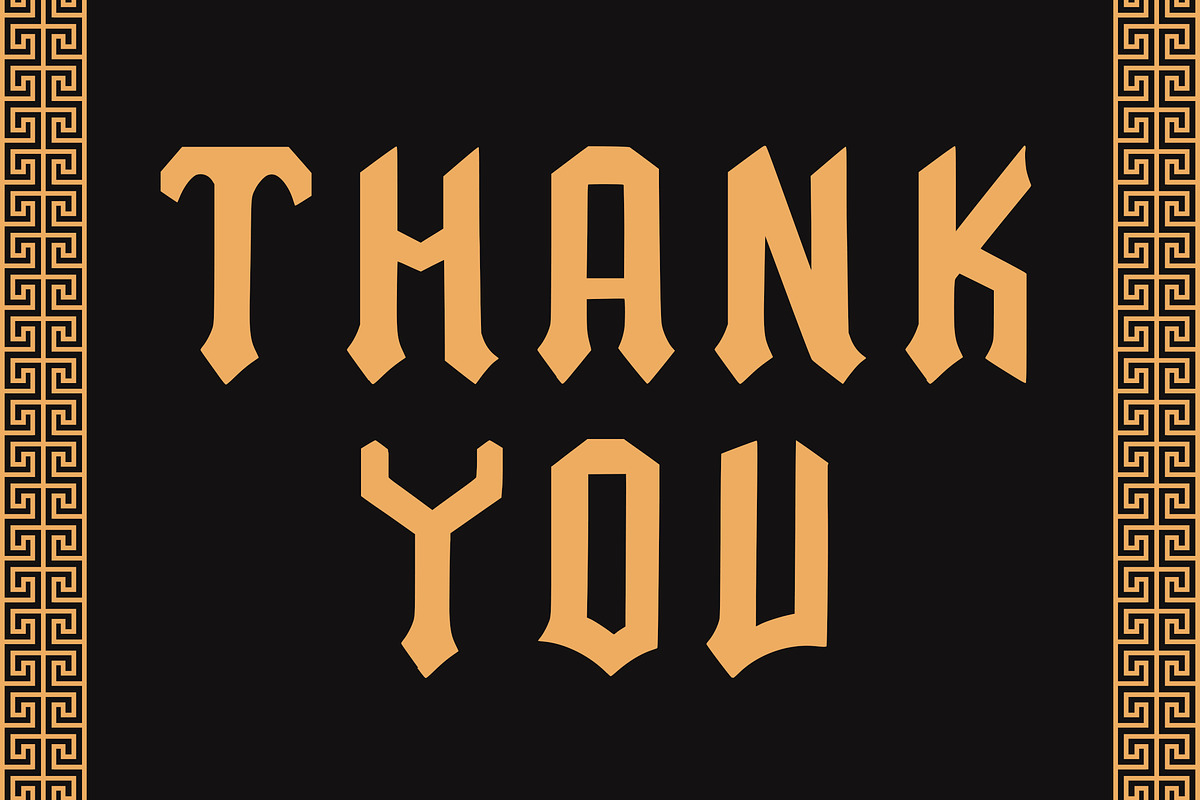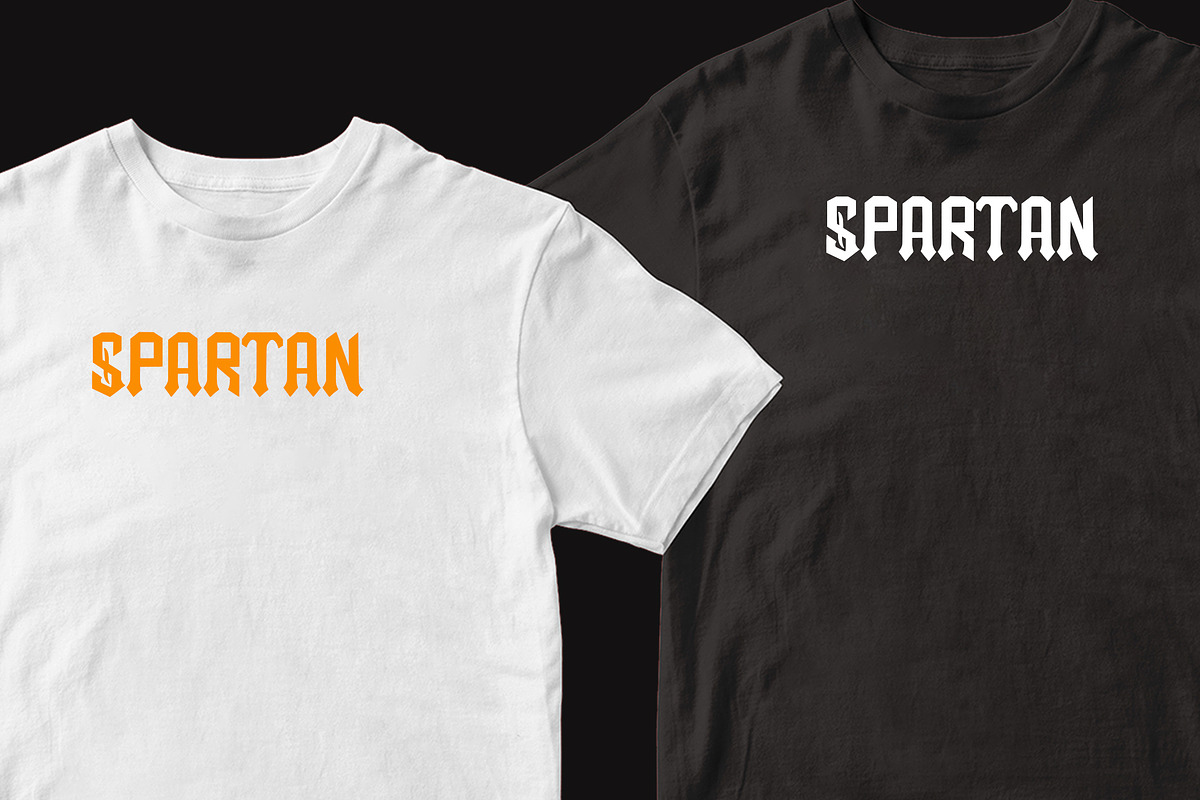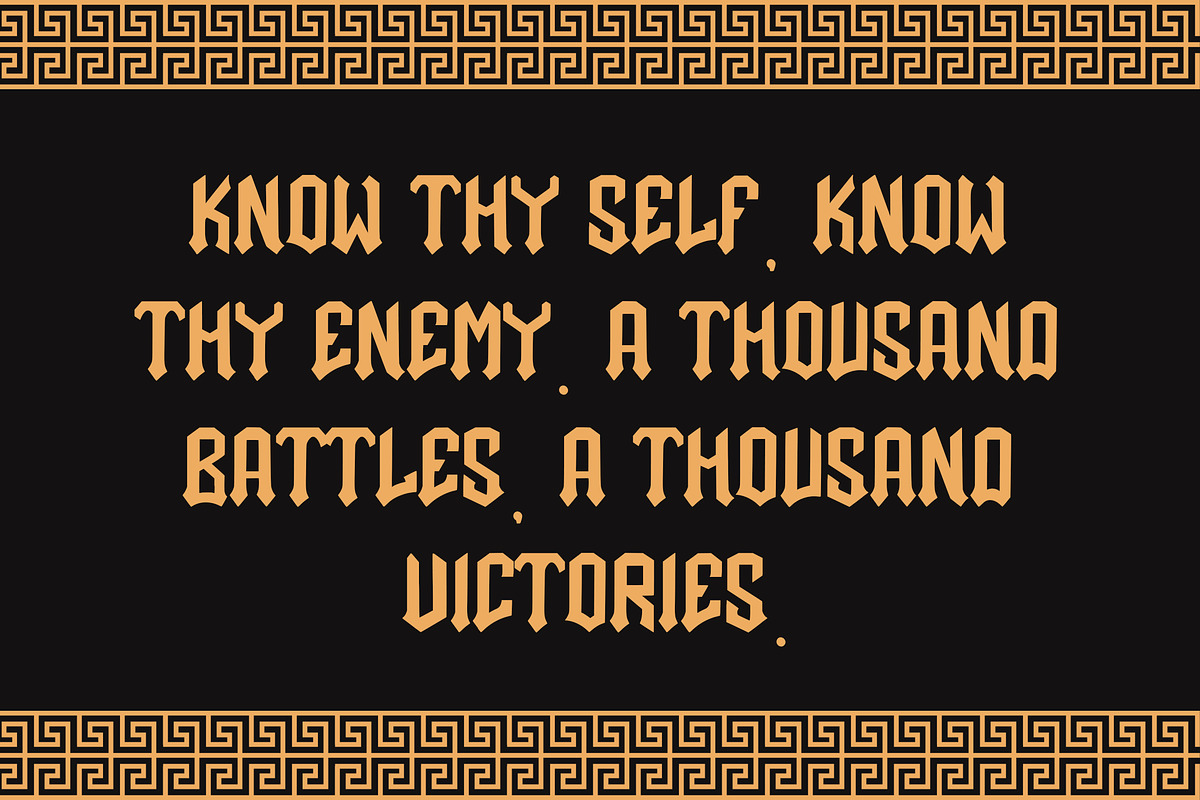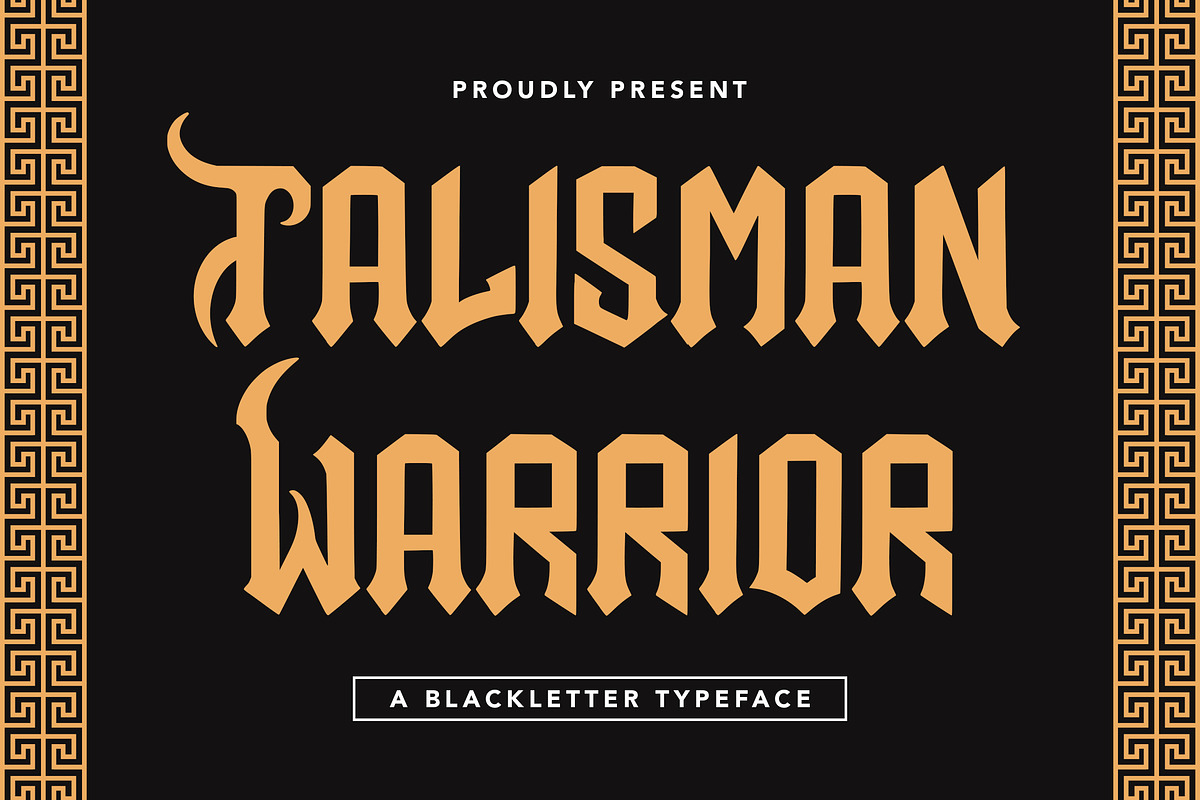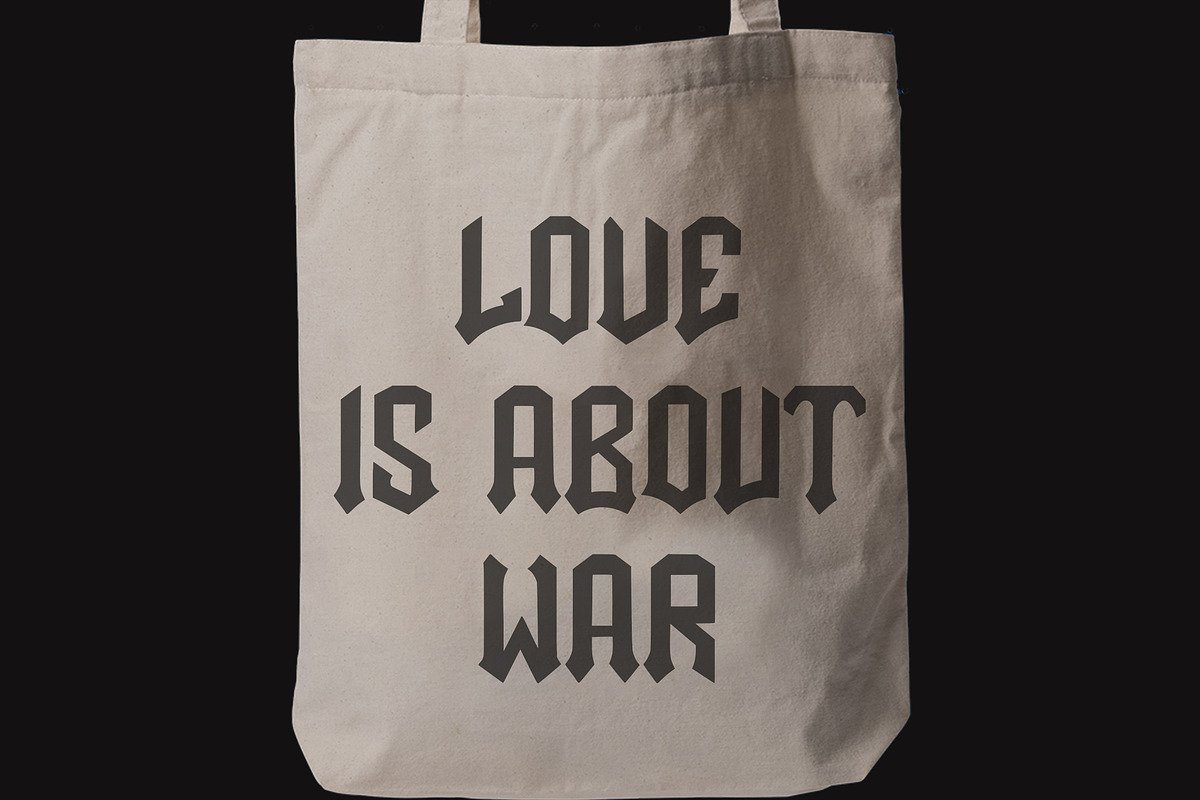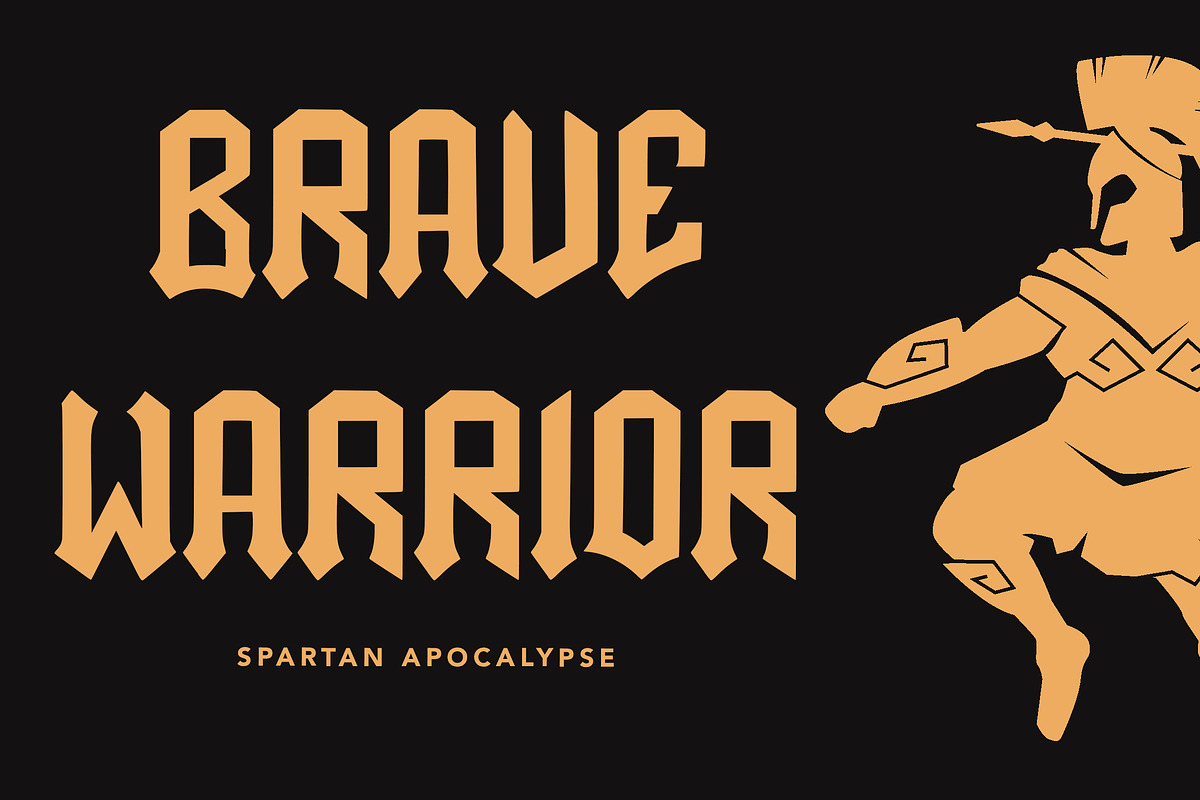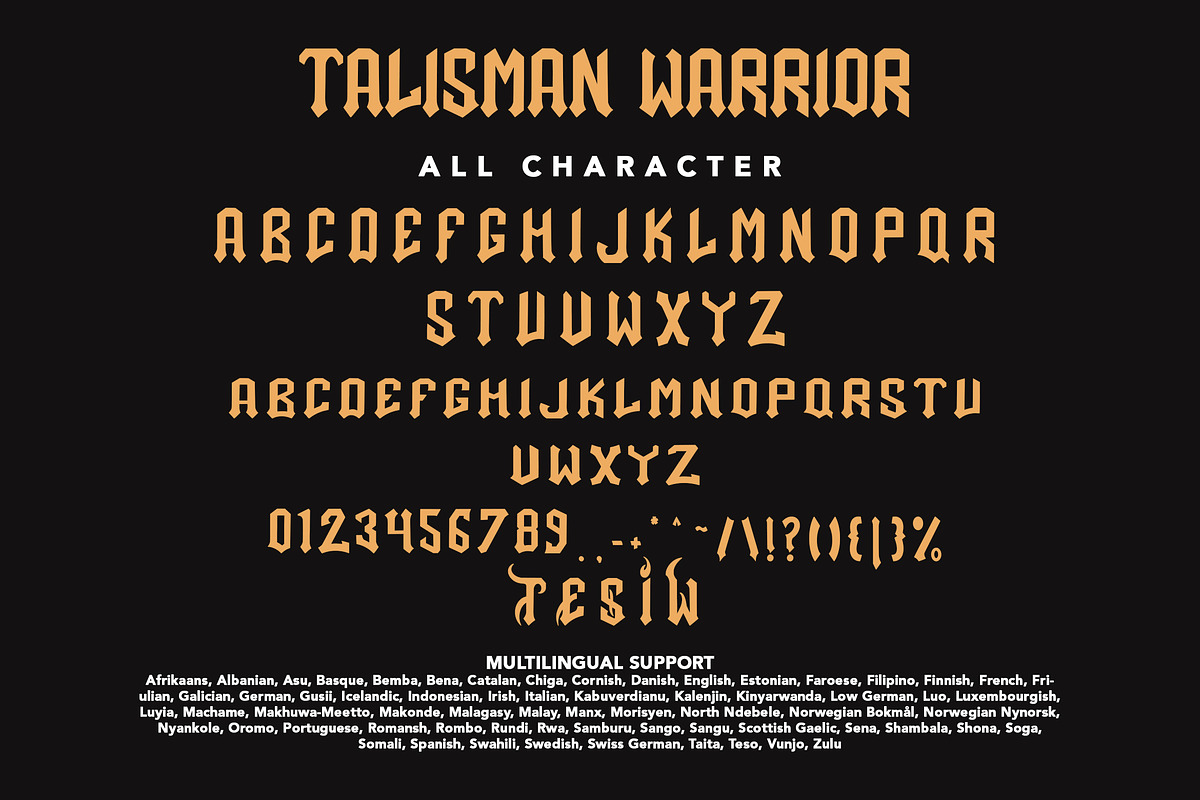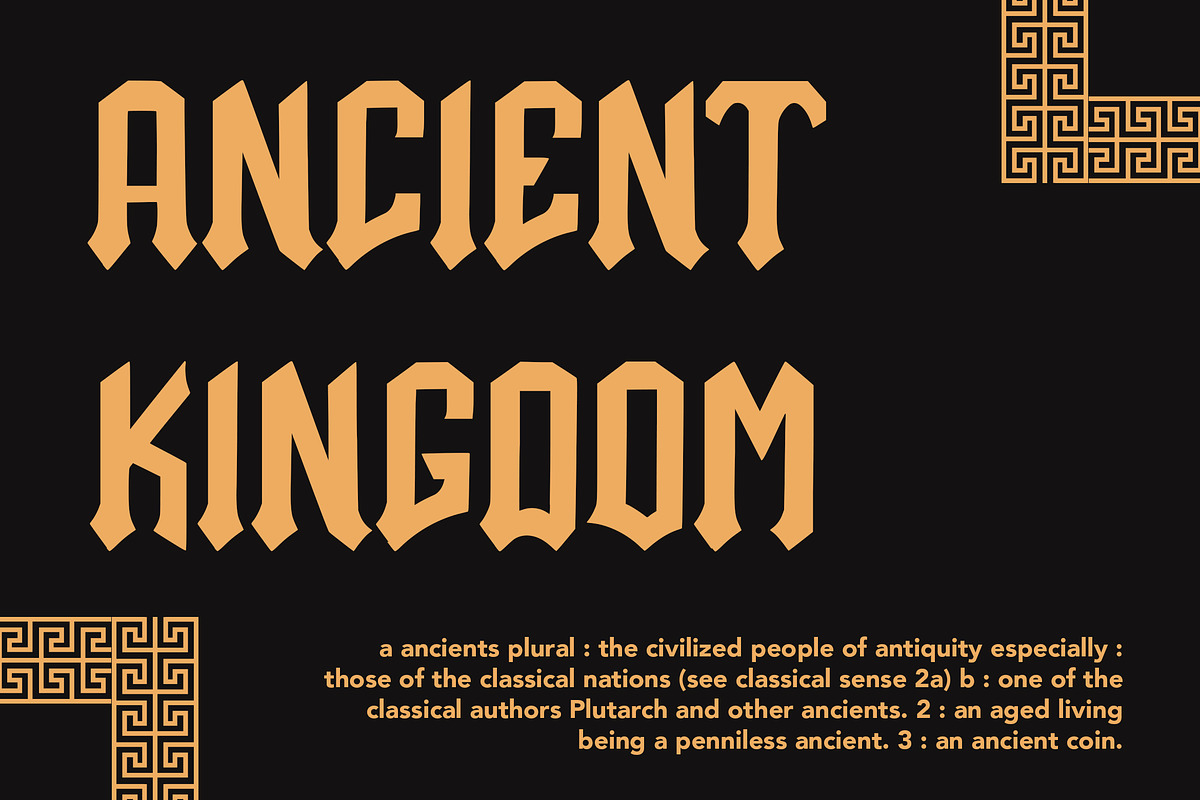
Talisman Warrior
Talisman Warrior is a blackletter typeface, also known as Gothic or Old English, embodies a rich historical and cultural aesthetic with its distinctive and ornate letterforms. Rooted in medieval manuscript traditions, this typeface is characterized by its bold, angular strokes, sharp angles, and intricate detailing. The blackletter typeface exudes a sense of Gothic elegance and timelessness.
The letterforms often feature elaborate, interwoven elements, creating a visually complex and captivating texture. The bold strokes and pronounced serifs give the typeface a strong and authoritative presence. Traditionally associated with manuscripts, religious texts, and formal documents, blackletter fonts evoke a sense of tradition, craftsmanship, and historical significance.
While historically tied to the Middle Ages, modern interpretations of blackletter typefaces often incorporate contemporary design elements, making them suitable for a variety of applications. Whether used in branding, headlines, or artistic projects, the blackletter typeface adds a touch of vintage sophistication, creating a visual impact that is both bold and culturally resonant.